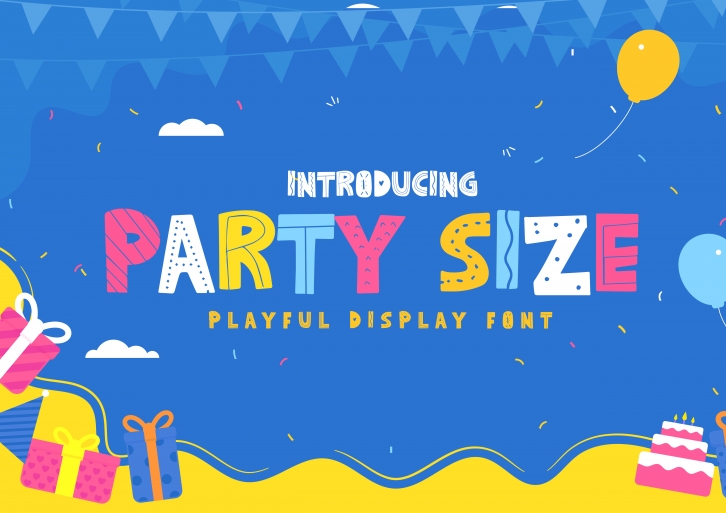
Party Size is a whimsical, hand-crafted and outlined display font. It is perfect for child related projects, cute quotes and so much more. Party Size is a whimsical, hand-crafted and outlined display font. It is perfect for child related projects, cute quotes and so much more.